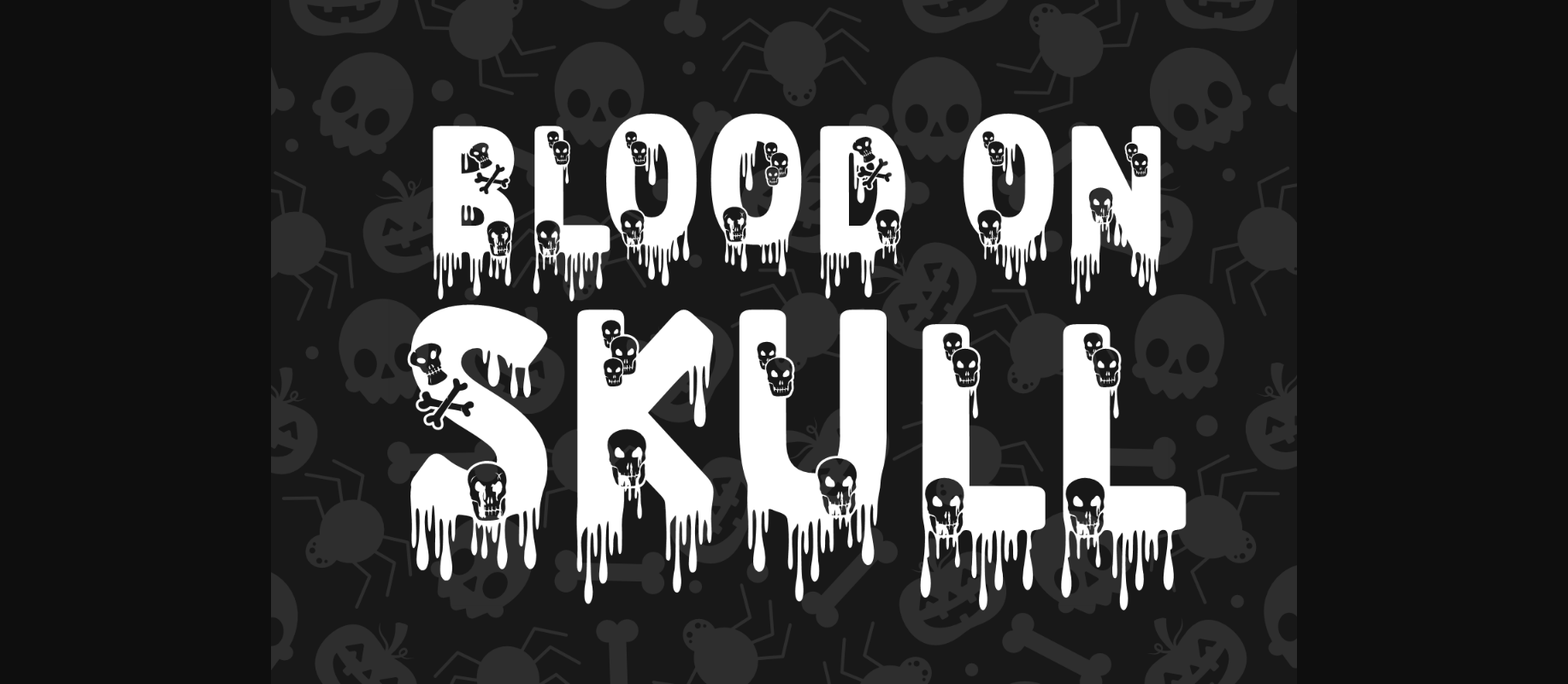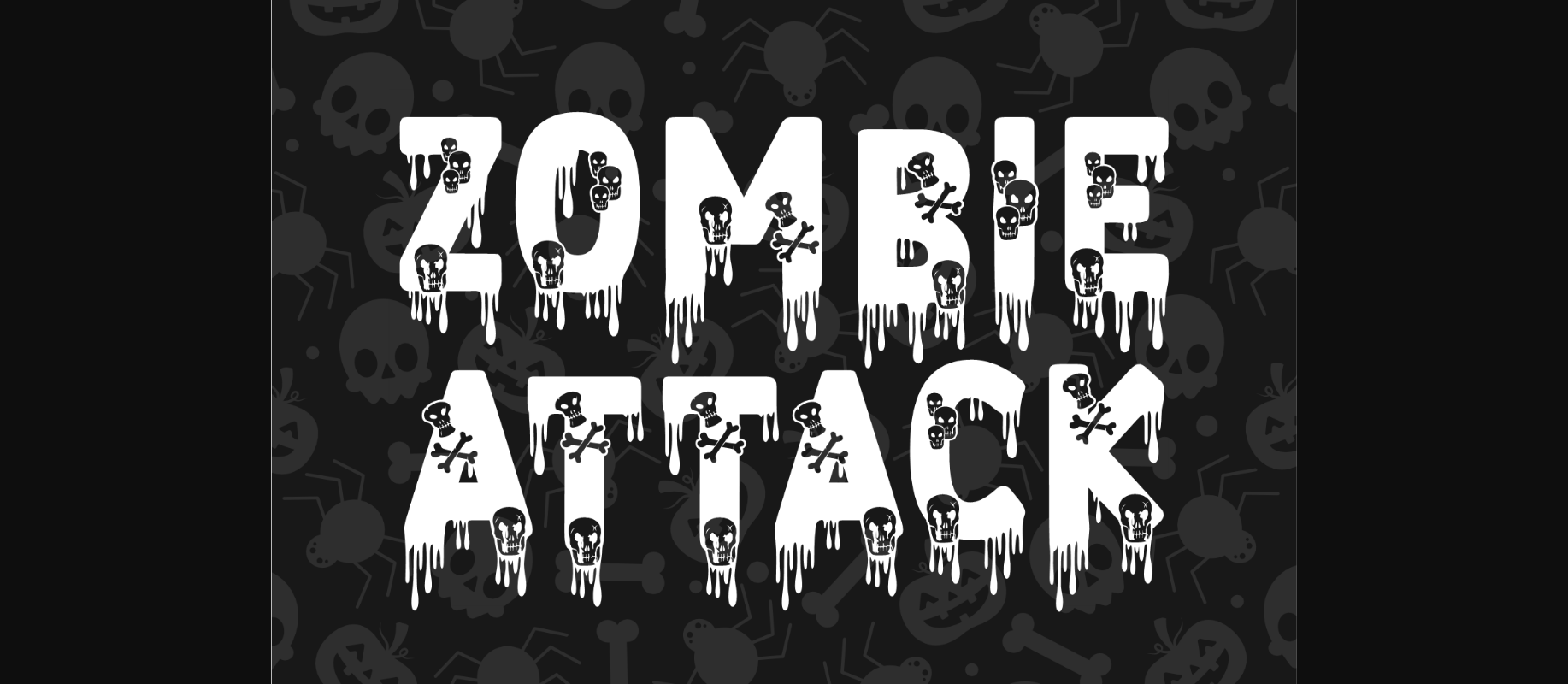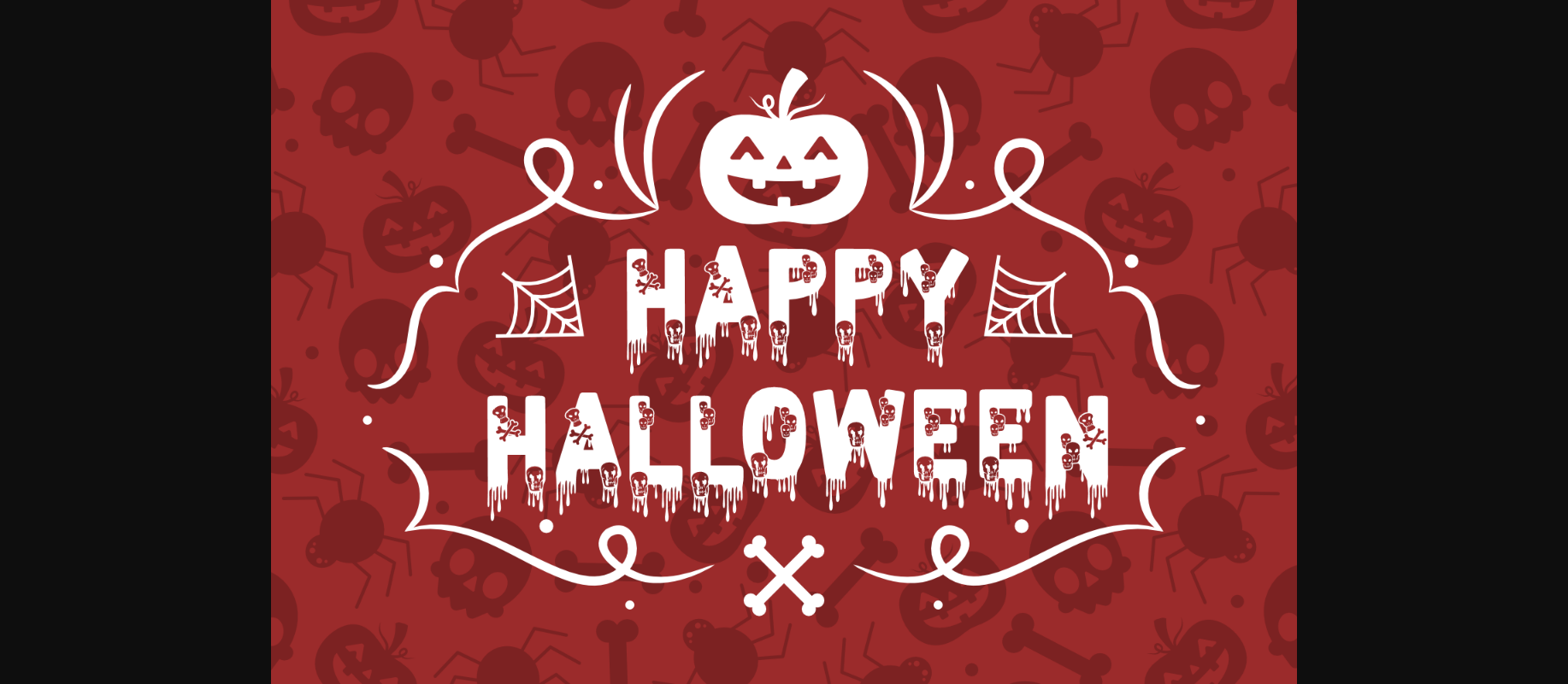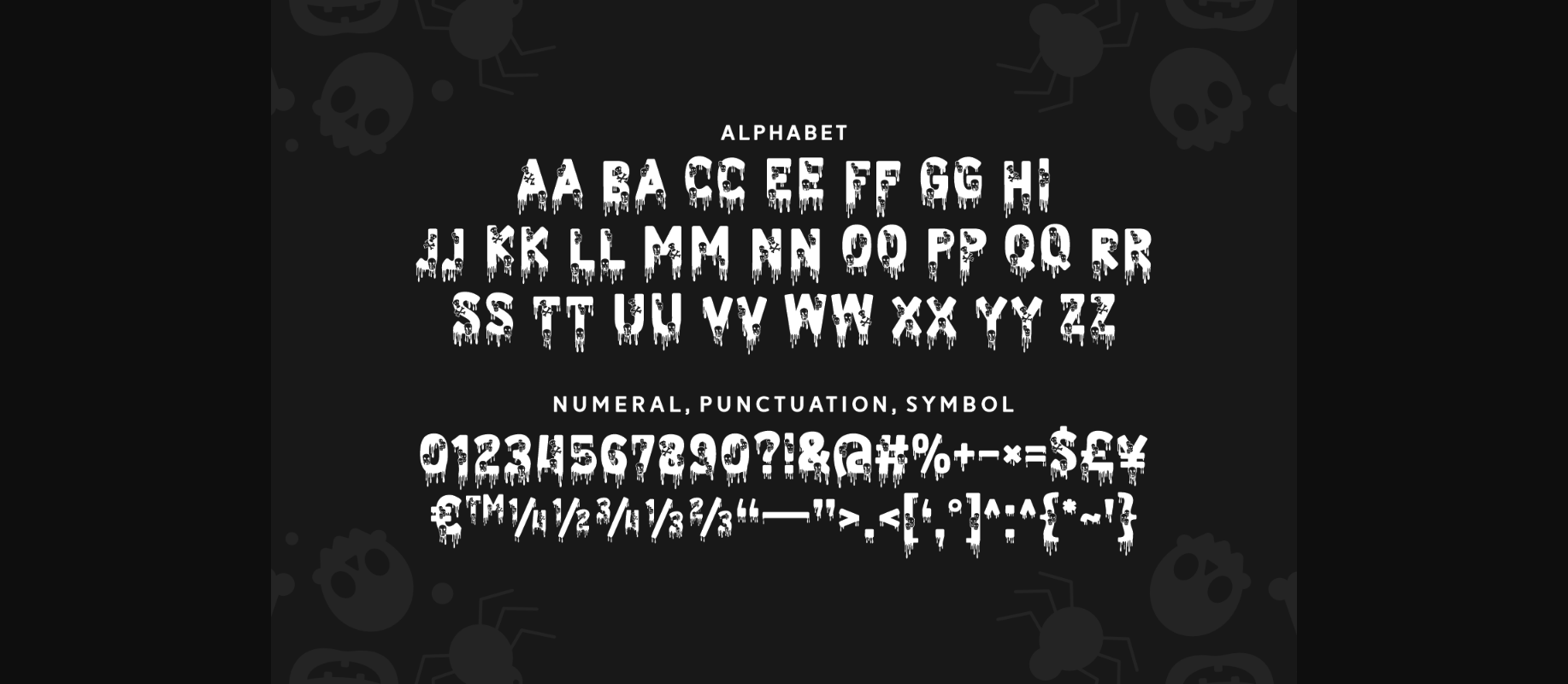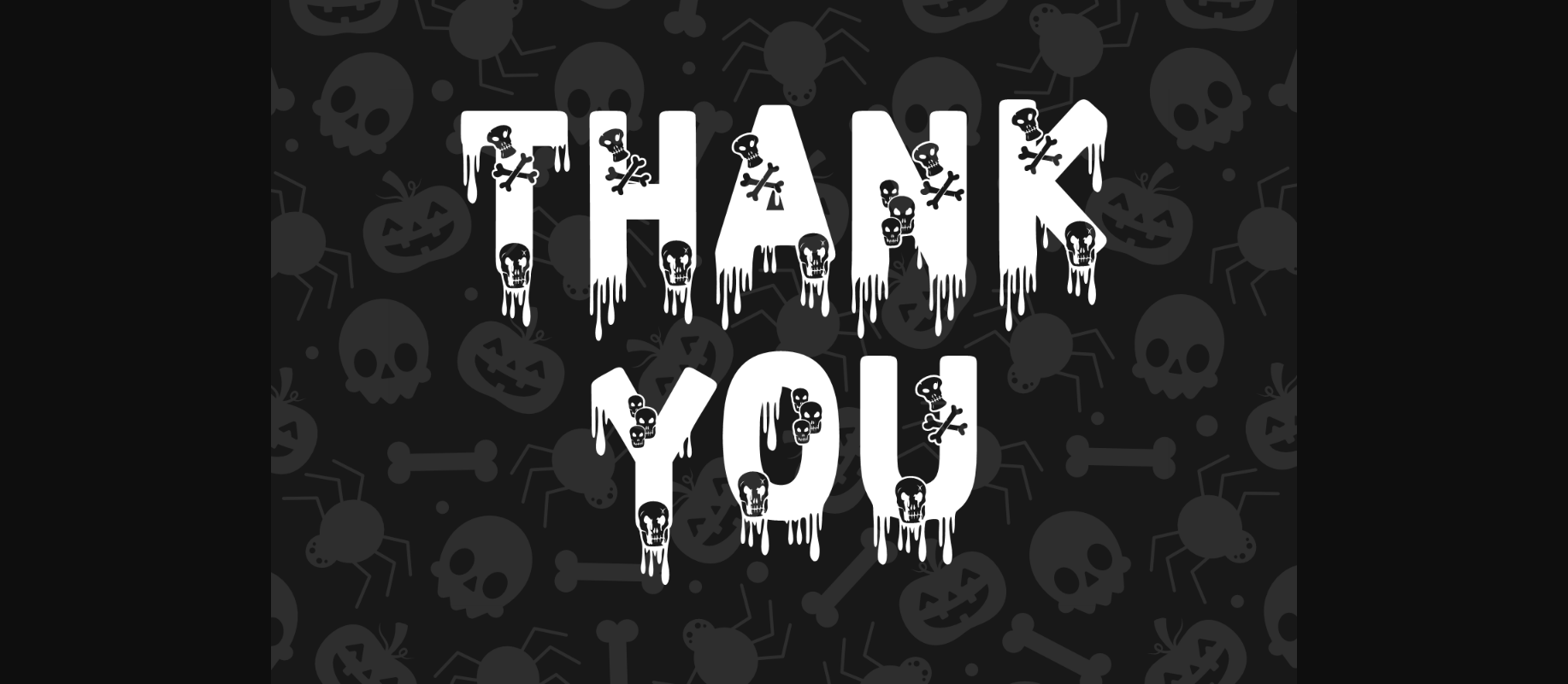
About Blood on Skull Font
Blood on Skull is a creepy-looking decorative font with blood-dripping characters, skulls, and bones. It is the perfect match for Halloween-themed projects and any time you need to add a spooky note to your creations.